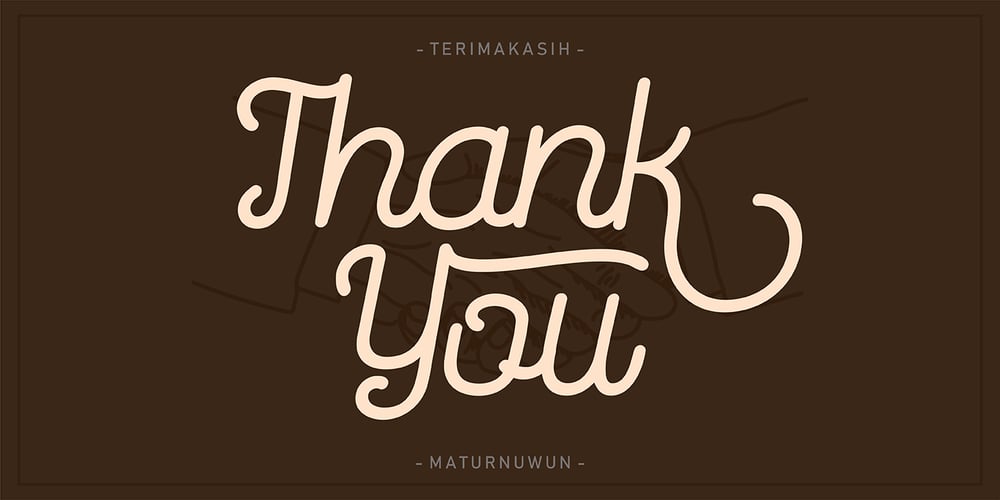
Routerline Font Family was designed by Lukman Hidayat and published by Viaction Type.Co. Routerline contains 4 styles and family package options. Routerline is a script monoline with 4 styles, nice applied in various products. Complete with multilingual characters, ligature and alternate. It is suitable for quote, clothing design, vintage logo, label, poster, packaging design and other designs. File Include (All Family) : Routerline.otf Routerline.ttf Routerline Slant.otf Routerline Slant.ttf Routerline Bold.otf Routerline Bold.ttf Routerline Bold Slant.otf Routerline Bold Slant.ttf Features (PUA Encoded) : UPPERCASE. LOWERCASE. MULTILINGUAL. PUNCTUATION & SYMBOL. STYLISTIC SET. LIGATURE. I hope you enjoy and thank you.